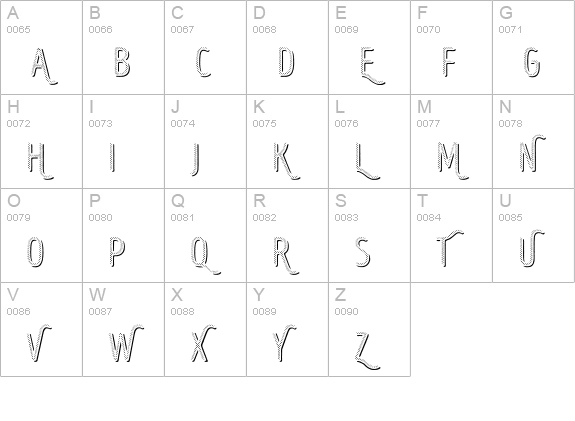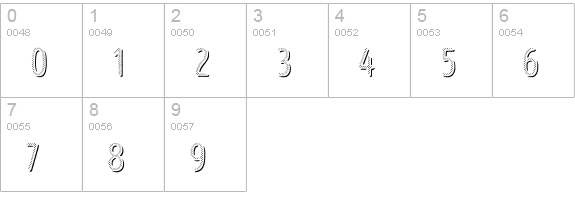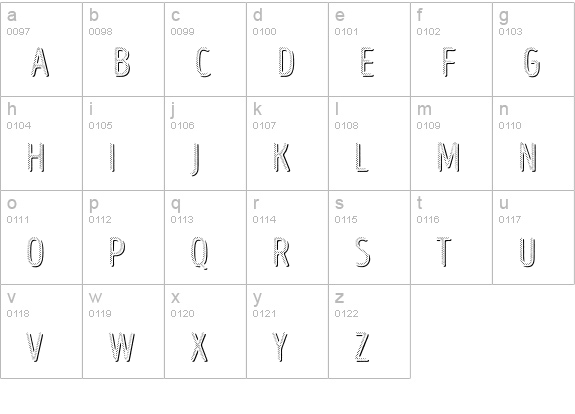
Intro Head R UC H1 Shade Font Details
The Intro Head R UC H1 Shade font is a bold and eye-catching display typeface designed to make a statement. With its unique and modern style, this font is perfect for creating impactful headlines, titles, and logos. The sharp edges and intricate details of the letters give it a sophisticated and edgy look that is sure to grab attention. Best of all, the Intro Head R UC H1 Shade font is available for free download at FontsMarket.com. Whether you're a graphic designer, a content creator, or just someone looking to add some flair to your projects, this font is a great choice. Don't miss out on the opportunity to enhance your designs with this striking and versatile typeface - download it for free today!